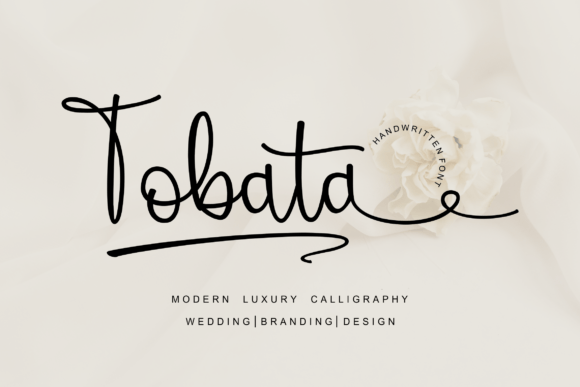
Introducing Tobata Font, the epitome of elegance and sophistication in the world of calligraphy fonts. This modern script font exudes a casual chic flair that is sure to captivate your audience and leave a lasting impression.
With its graceful strokes and charming personality, Tobata Font is the perfect choice for branding, wedding invitations and cards, and even for creating stunning labels. Its versatility knows no bounds, allowing you to effortlessly elevate any project to new heights of creativity and professionalism.
Dive into a world of endless possibilities with Tobata Font. Unleash your inner artist and let your imagination soar as you craft beautiful designs that speak volumes. From heartfelt wedding vows to eye-catching brand logos, Tobata Font will be your trusted companion on your creative journey.
Beyond its aesthetic appeal, Tobata Font is a font that resonates with emotion. Its flowing lines and delicate curves evoke a sense of warmth and intimacy, making it the perfect choice for expressing your heartfelt sentiments.
With Tobata Font, you'll discover a font that not only enhances the visual appeal of your projects but also adds a touch of magic and inspiration. Its timeless beauty will transcend trends and leave a lasting legacy that will be cherished for years to come.
So why settle for ordinary when you can have extraordinary? Embrace the charm of Tobata Font today and unlock a world of creative possibilities. Let your designs shine with grace, elegance, and a touch of casual chic flair.